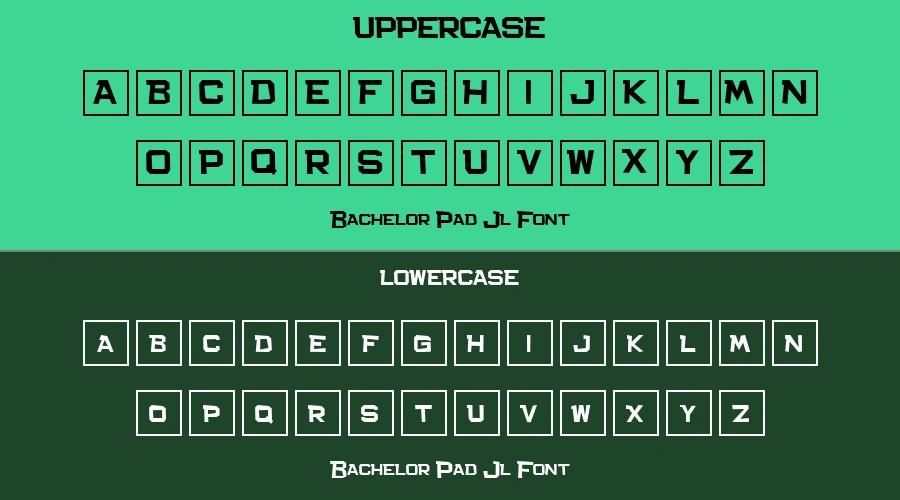
About Bachelor Pad Jl Font
Bachelor Pad Jl Font stands out for its distinctive combination of bracketed serifs and brand presence. Ideal for marketing materials, it provides the distinctiveness and creative impact that professional projects demand. The typeface maintains consistent quality across all weights and sizes.
Key features include refined flared stems and practical currency signs, enhancing typographic expression. In digital platforms applications, Bachelor Pad Jl Font demonstrates exceptional data presentation. The ascender height and engineering heritage contribute to its distinctive character and professional appeal.